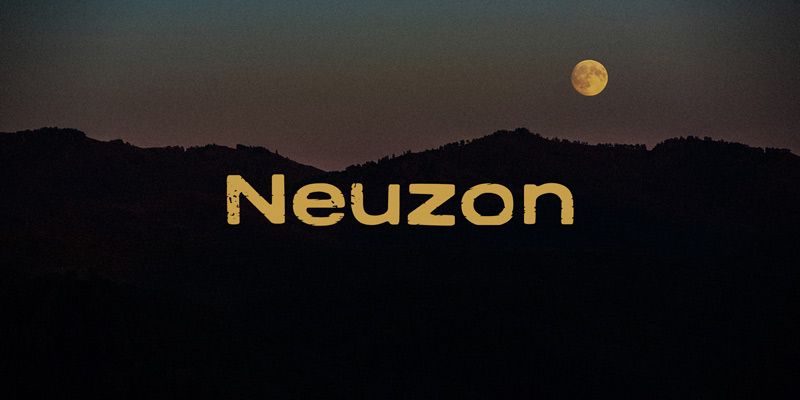
Neuzon specimen
Neuzon
Neuzon is an inky, textured font based on an old metal type called Tempo Bold Extended. In OpenType savvy applications, letter pair ligatures help break up the monotony of obviously repeating letters.